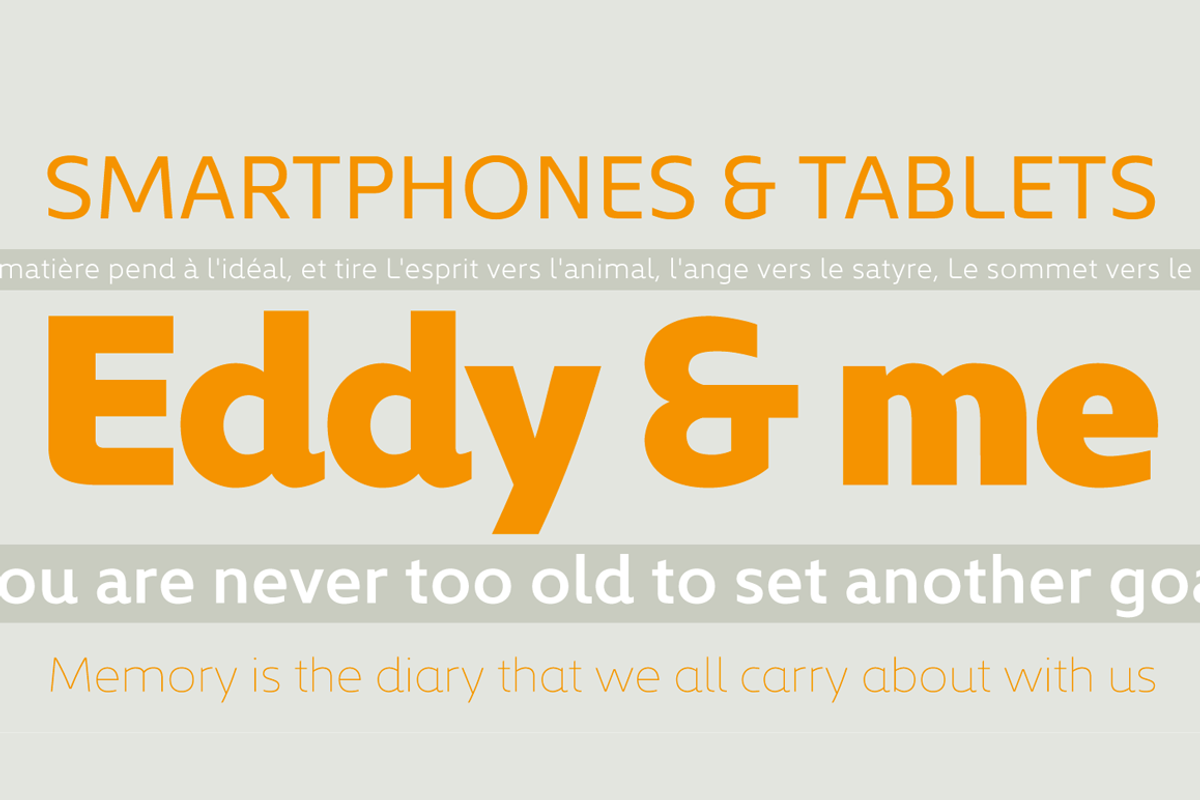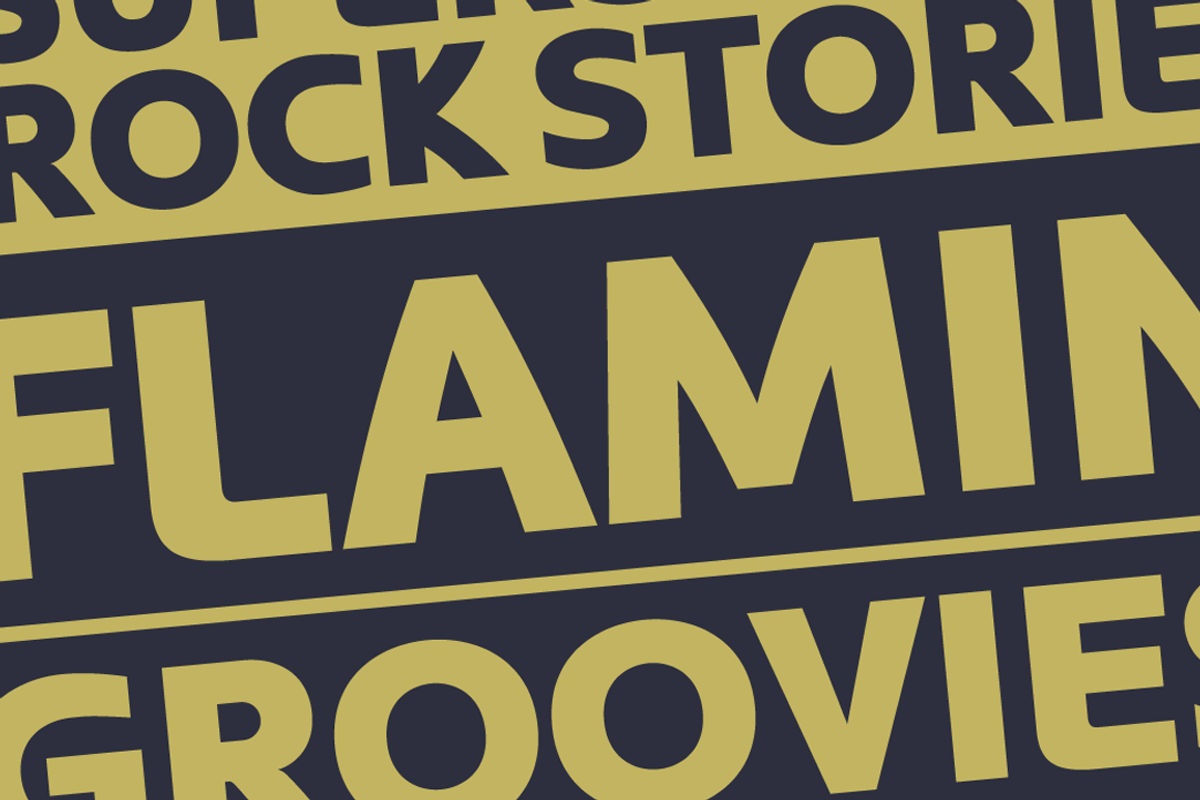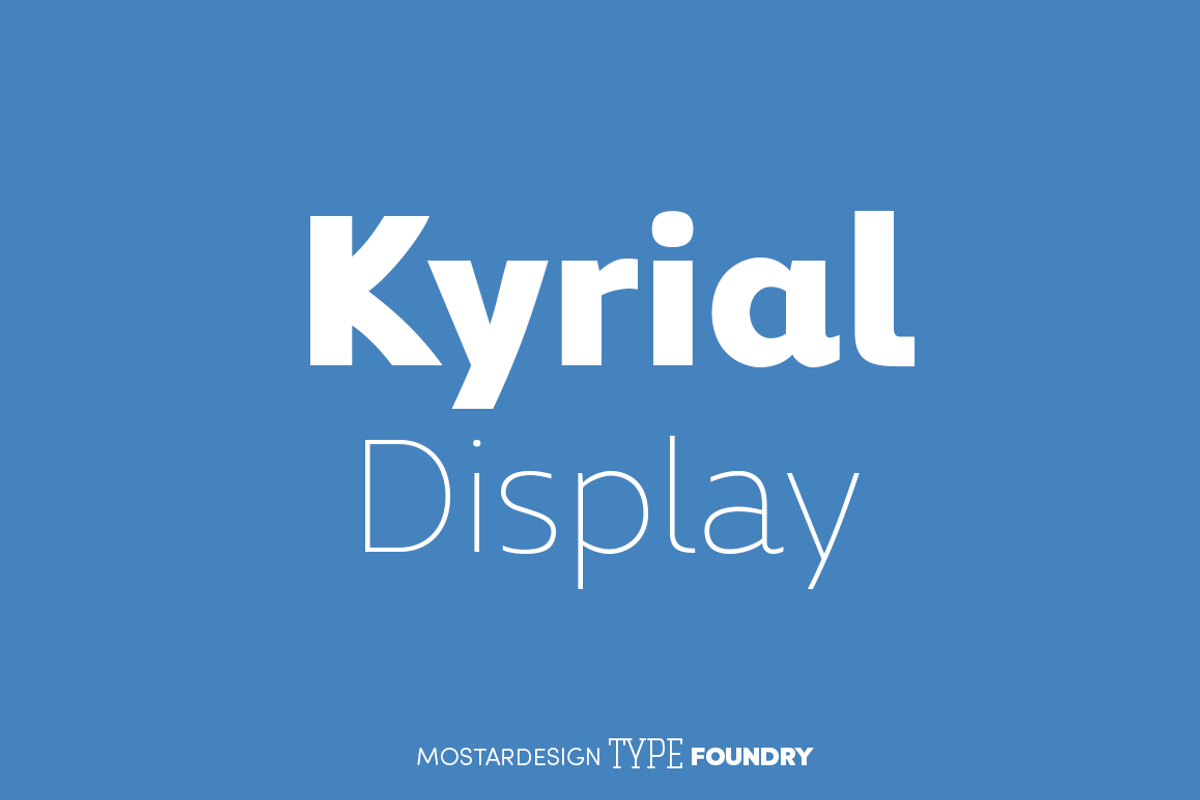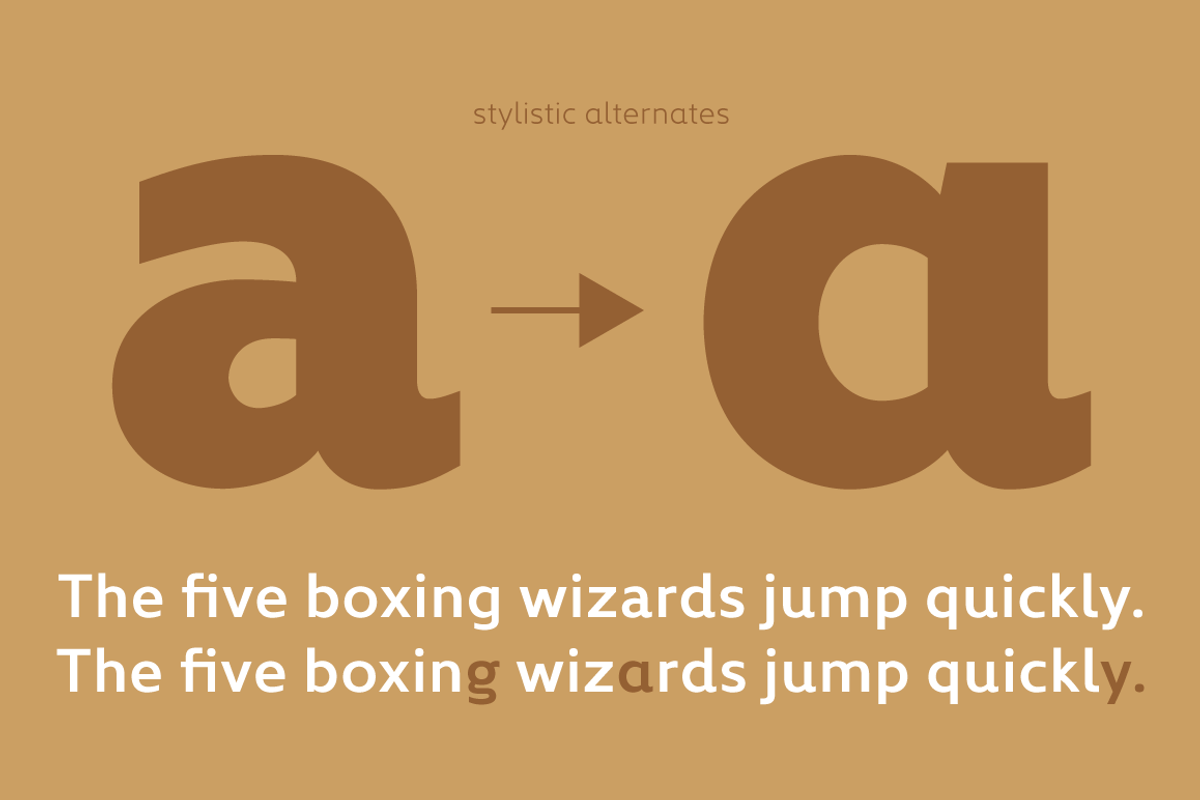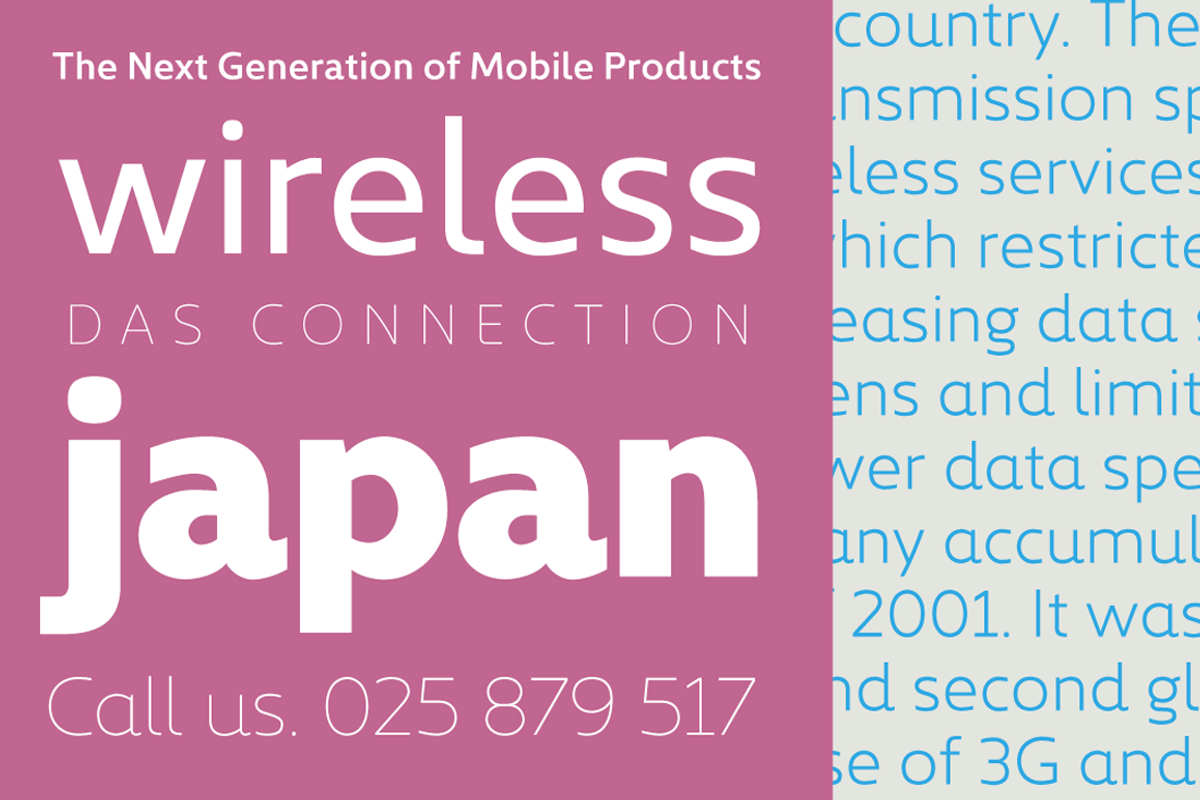
Kyrial Display Complete (12 fonts)
Kyrial Display Pro font family has generous proportions with a range of weights make it a versatile family for print and web design work. Kyrial Display Pro is also a pratical typographic choice to express strength, elegance, and conceptual clarity.
• OT Features: aalt case dlig dnom frac kern liga lnum numr onum ordn pnum salt sinf ss01 sups tnum